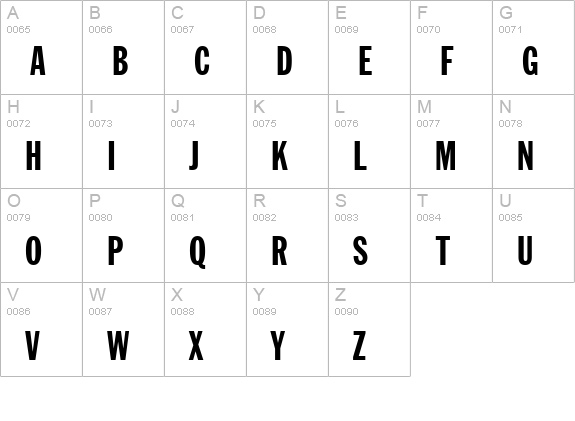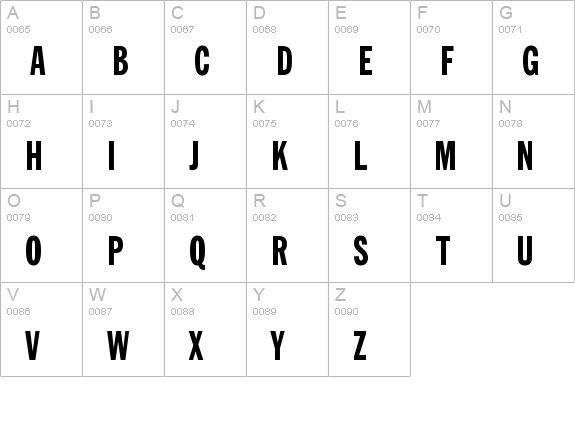
JackExtraCond Font Details
Introducing JackExtraCond, a bold and dynamic font that is destined to make a statement. With its sleek and modern design, this typeface is perfect for adding an extra touch of sophistication to any project. Its condensed letterforms create a strong visual impact, making it ideal for headlines, logos, and branding materials. What sets JackExtraCond apart is not only its striking appearance but also its versatility. This font can effortlessly adapt to a wide range of design styles, from elegant and classy to edgy and contemporary. Whether you're creating a high-end fashion magazine, a trendy website, or a sleek advertising campaign, JackExtraCond will elevate your visuals to new heights. And the best part? JackExtraCond is completely free! Yes, you read that right. This exceptional font is freely available to download at FontsMarket.com, one of the leading sources for high-quality fonts. Now, you can enhance your creative projects without breaking the bank. So, why wait? Explore the endless possibilities that JackExtraCond offers and let your imagination soar. Download it today and experience the power of this remarkable font firsthand. Don't miss out on the opportunity to captivate your audience with a font that combines style, versatility, and affordability.